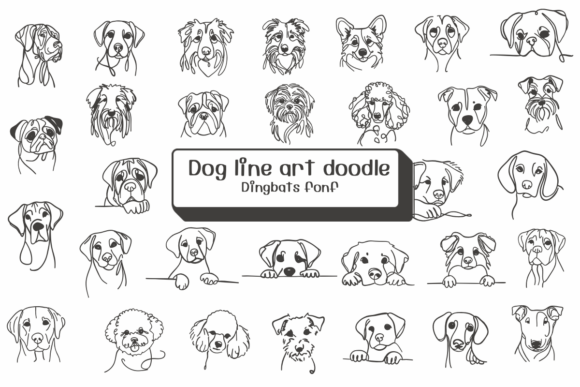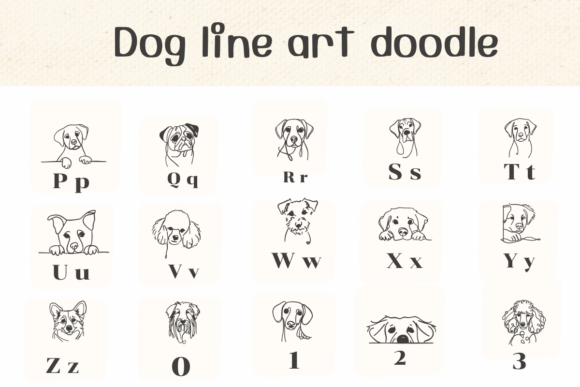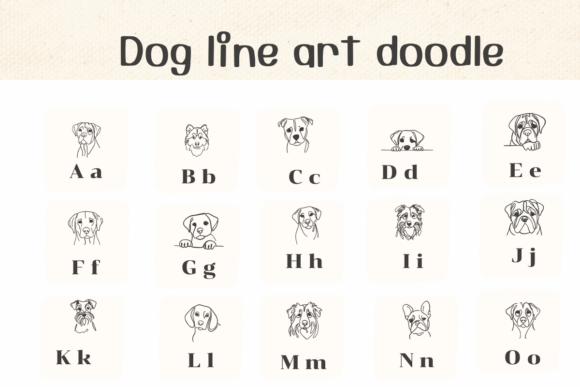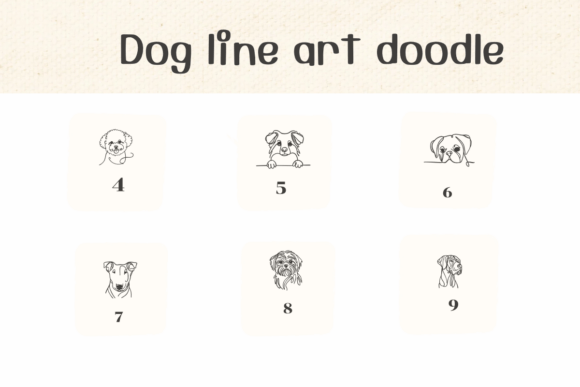
Dog Line Art Doodle Font
About the Dog Line Art Doodle Font
The Dog Line Art Doodle Font offers a perfect balance of form and function for your design needs. Dog line art doodle is a dingbats font with a canine theme. This font can enhance your creative projects such as wedding invitations, DIY, crafts, decorations, logos, and many other creative ideas.
This playful font is ideally suited for projects requiring a lighthearted and approachable aesthetic. It works exceptionally well in headlines, logos, short text segments on packaging, and social media graphics. Its whimsical nature makes it perfect for branding pet-related businesses, children’s products, or projects emphasizing a friendly, informal tone. Avoid using it for body text or lengthy paragraphs; its informal style is not suited for large amounts of text.
Dog Line Art Doodle pairs well with clean sans-serif fonts like Open Sans or Lato for a balanced contrast. For a more sophisticated look, consider pairing it with a classic serif like Garamond or a subtly elegant script font for invitations or branding materials where a touch of formality is desired. This creates visual harmony and prevents the design from feeling overwhelming.
The font’s overall personality is undeniably friendly and approachable, making it a great choice for projects aiming to evoke feelings of warmth and joy. Its informal nature is not suited to formal contexts such as legal documents or high-end luxury products.